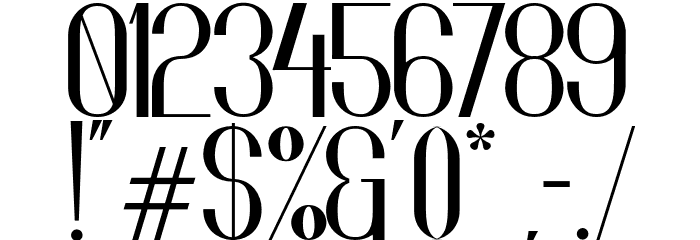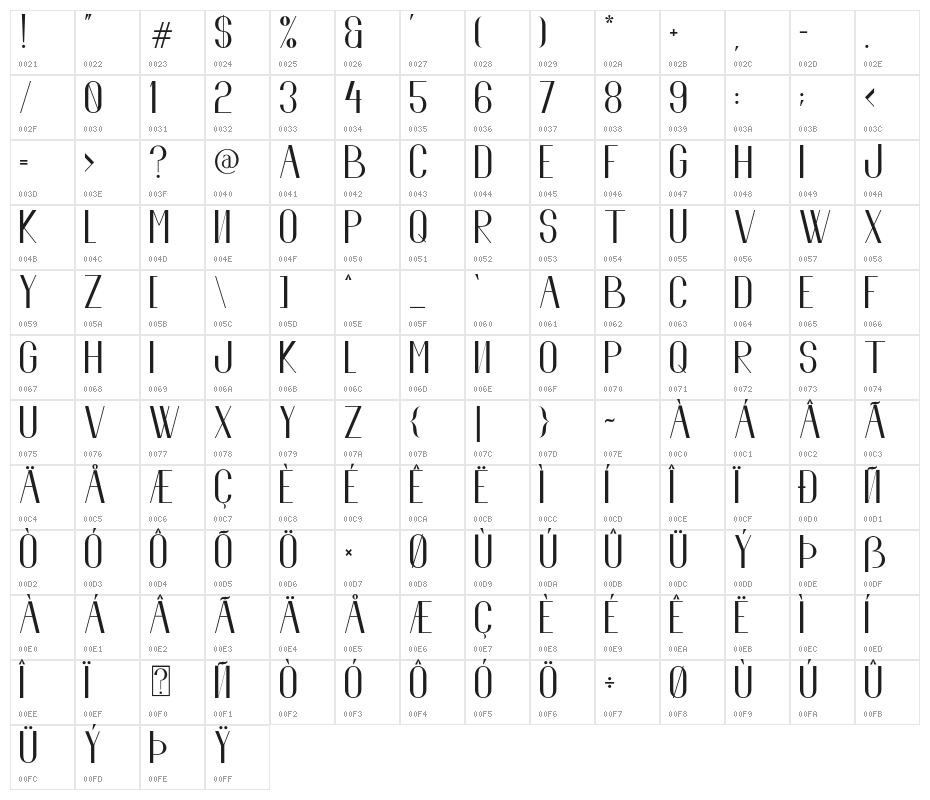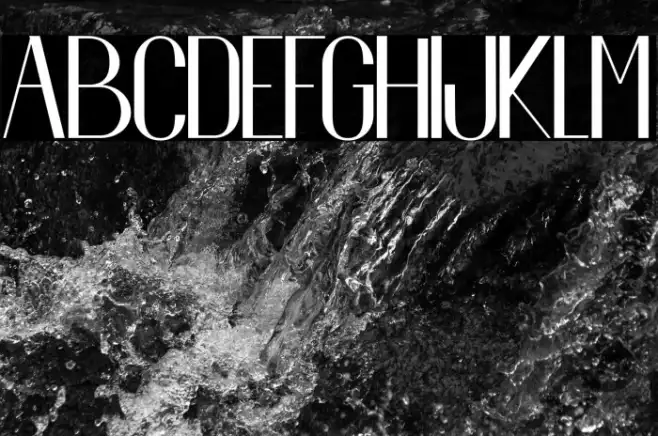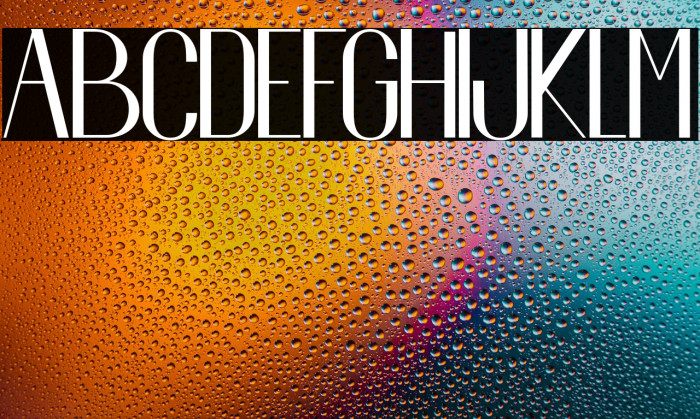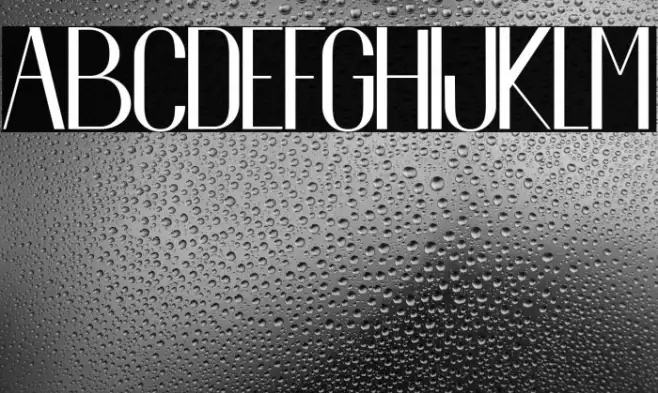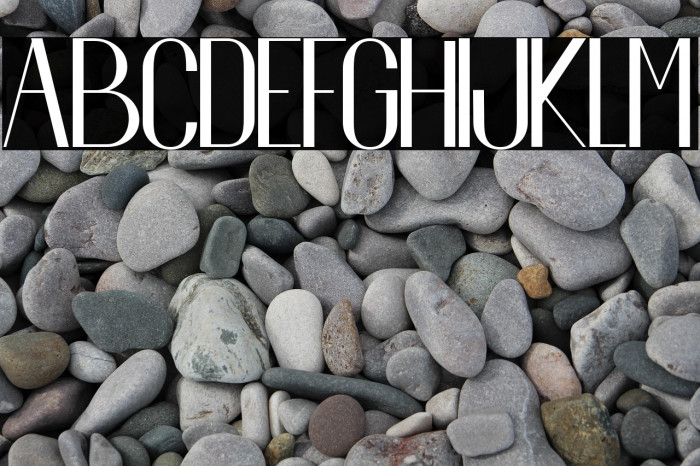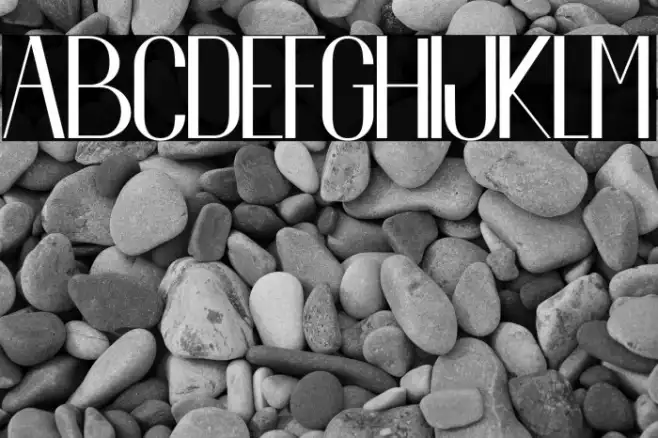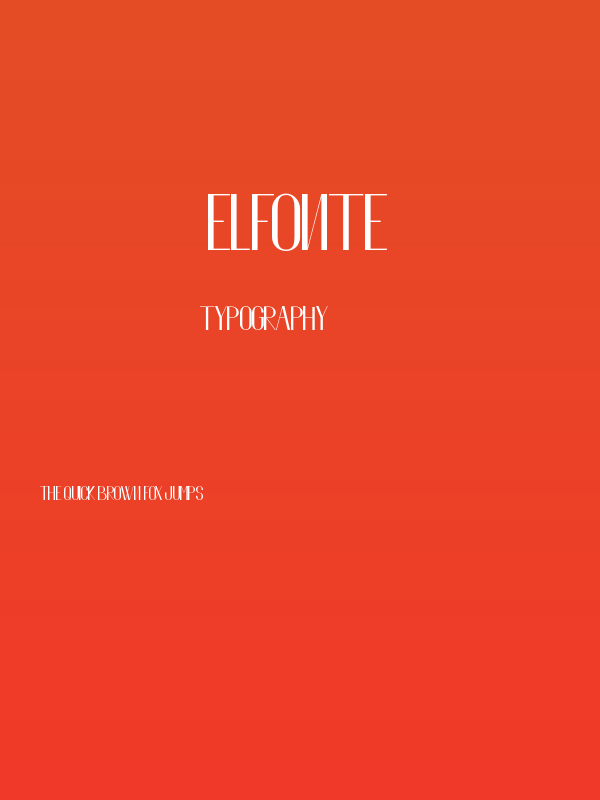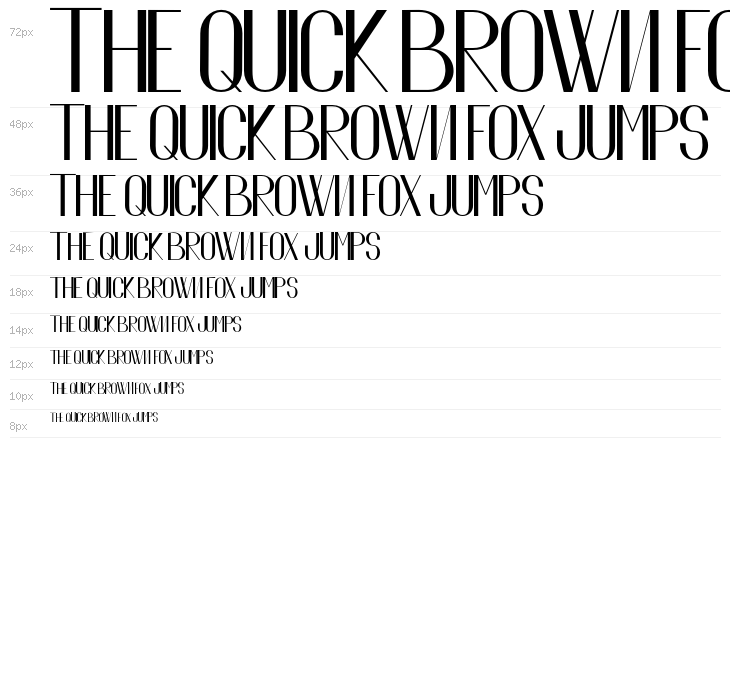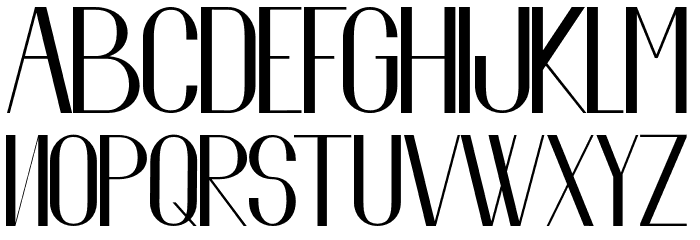
ElFonte Font
ElFonte Description
This font features a striking and modern design with high contrast between thick and thin strokes. The uppercase letters are tall and elegant, with a distinct geometric influence that adds a contemporary flair. The lowercase letters maintain a consistent style, offering a seamless blend with the uppercase. Numbers are bold and clear, making them highly legible. Special characters are uniquely styled, complementing the overall aesthetic. The font's sharp angles and clean lines make it suitable for a variety of design applications, from digital media to print.
| Use Case | Headlines, Logos, Editorial design |
| Proposed Projects | Ideal for branding, editorial design, advertising, and digital media projects. |